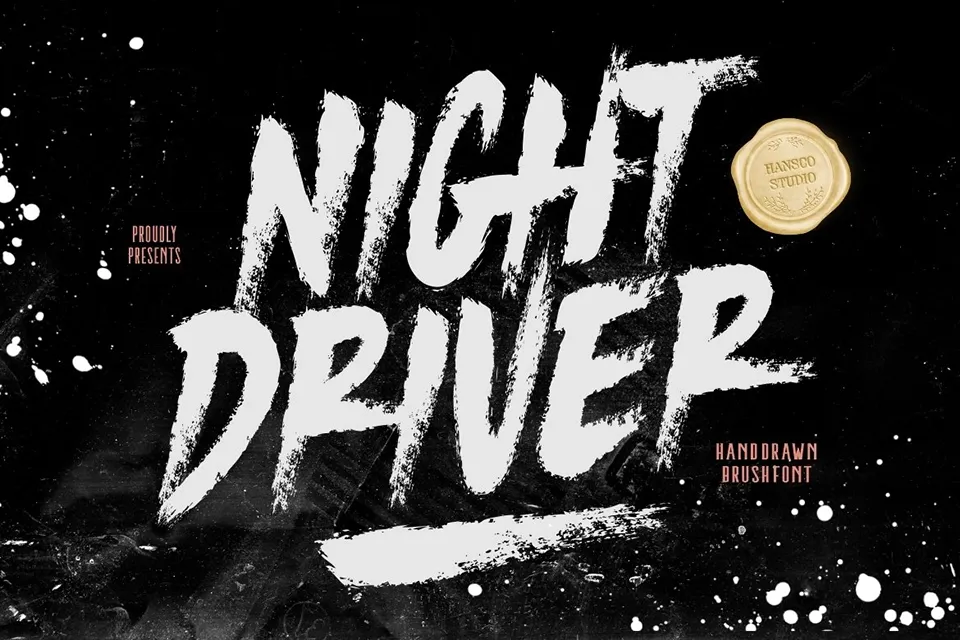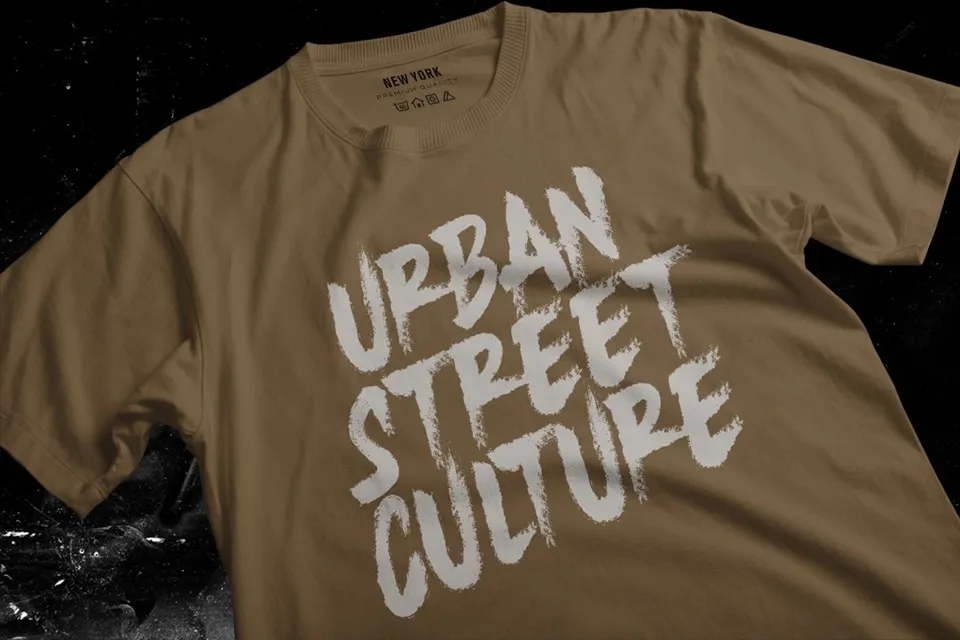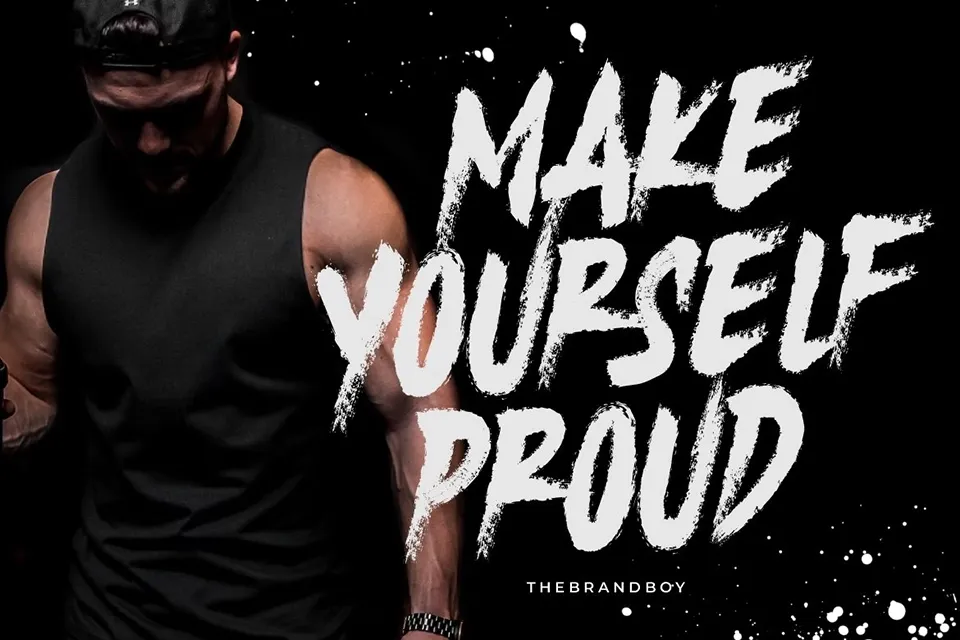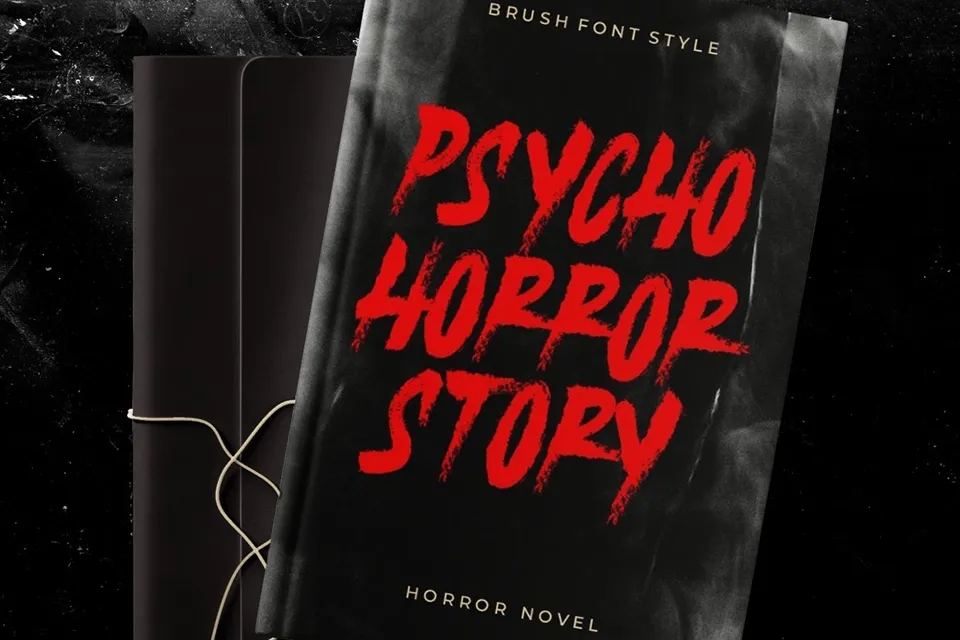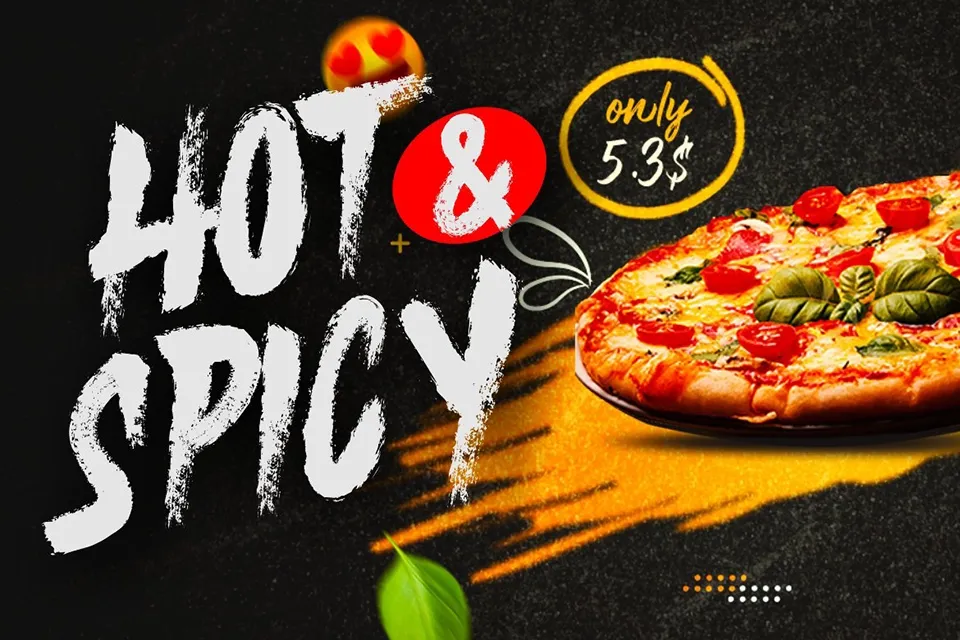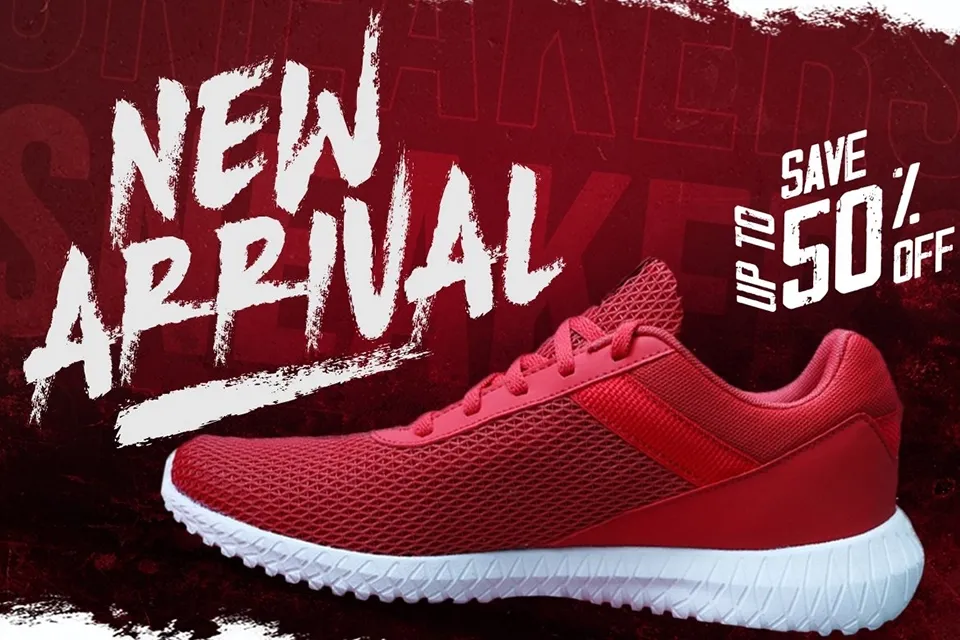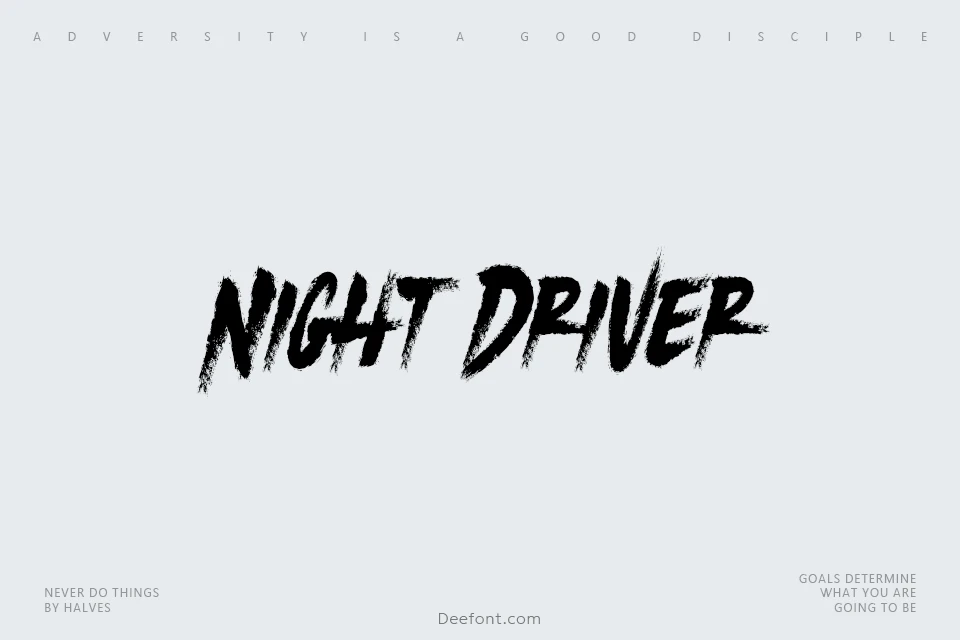
Night Driver Font
Night Driver Font is a detailed brush typeface designed to emulate the look of rough, wide paintbrush lettering, reminiscent of bold graffiti. This hand-drawn font features an energetic and somewhat gritty style. It comes in all caps, complete with punctuation, numerals, and multilingual support, making it versatile for various projects. Night Driver is well-suited for logos, product branding, posters, flyers, t-shirt designs, and text overlays that require a strong, impactful statement. Its distinctive texture brings an authentic, hand-painted feel to creative work.